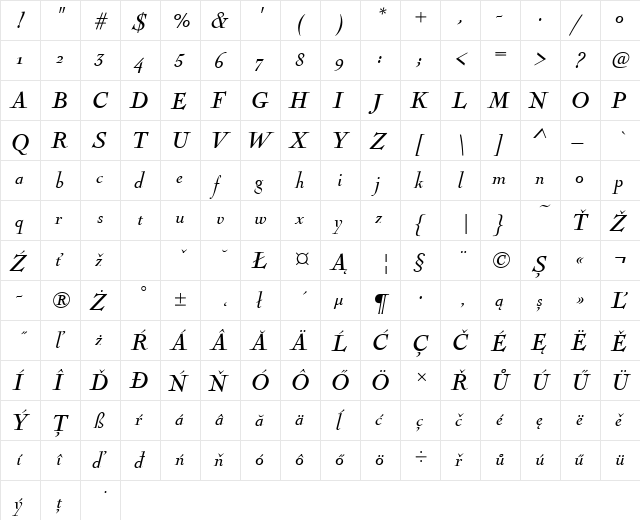
NicolasCocTEEReg Italic
Design Context for NicolasCocTEEReg Typeface
NicolasCocTEEReg takes a measured approach to typography — its balanced proportions and neutral character make it a reliable workhorse for both digital and print work. Its italic angle brings a sense of urgency and motion to the letterforms.
Pro Tip: Use NicolasCocTEEReg for emphasis, pull quotes, and subheadings where its slanted energy can add rhythm to the layout.